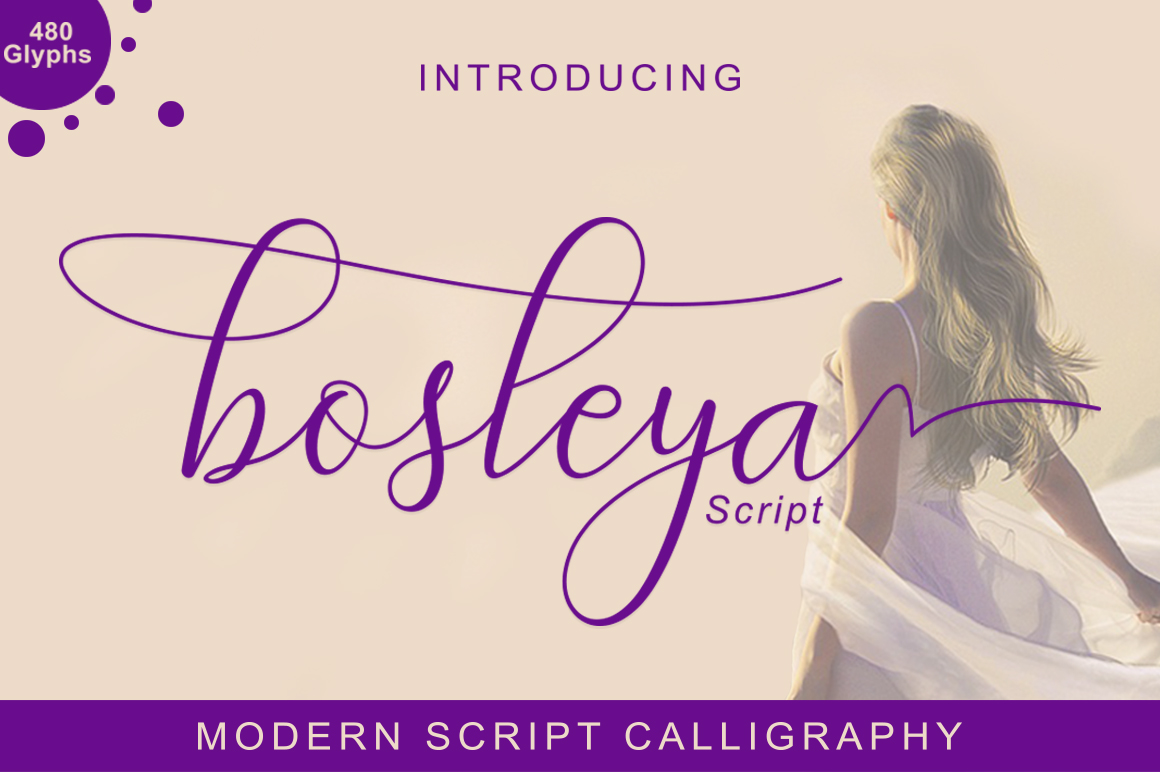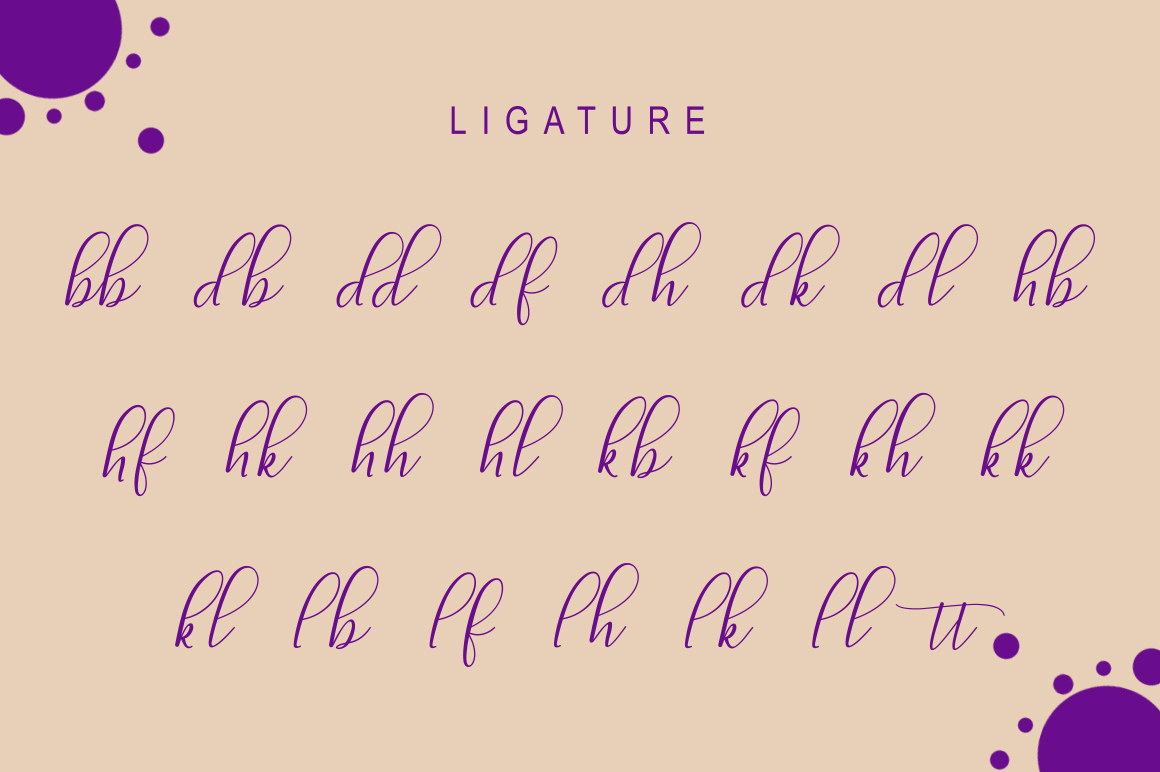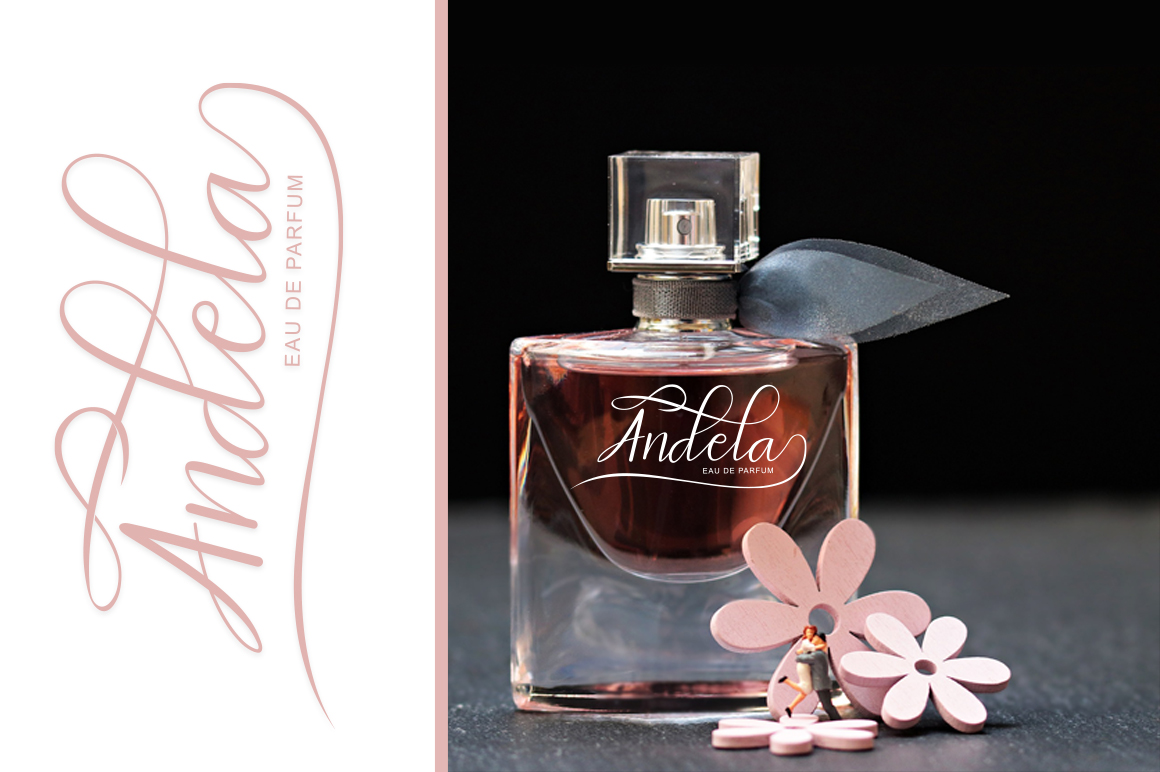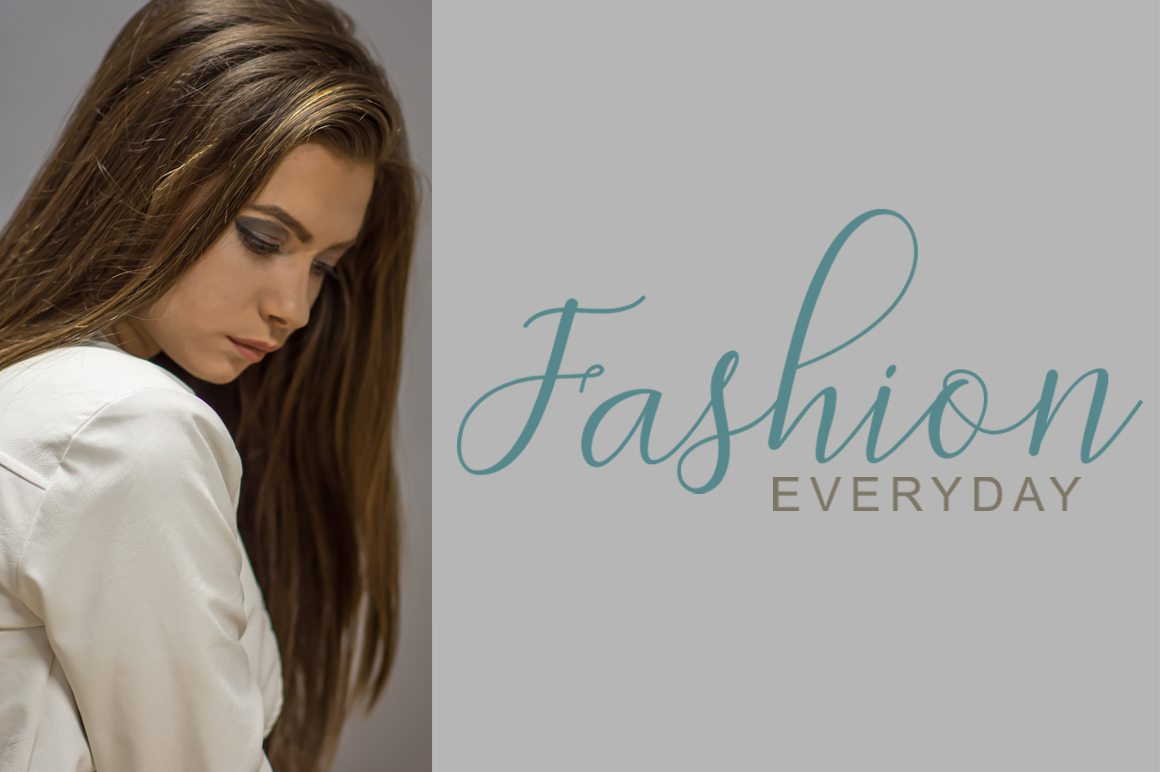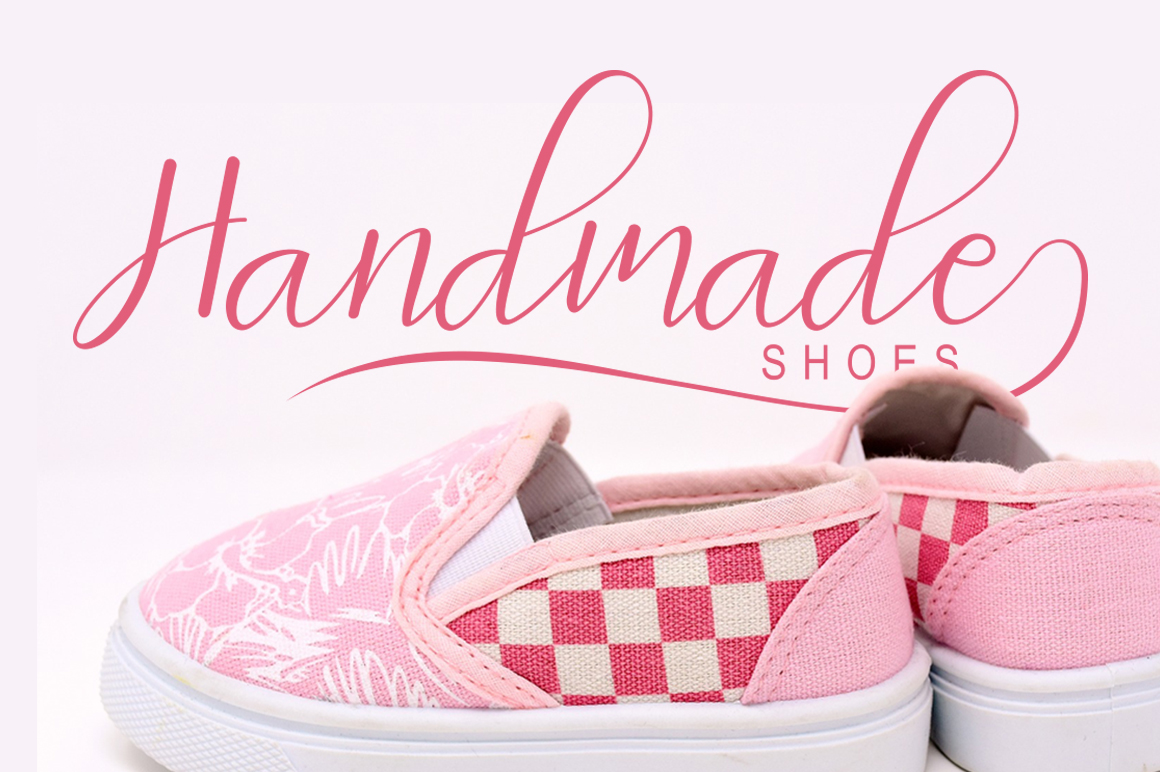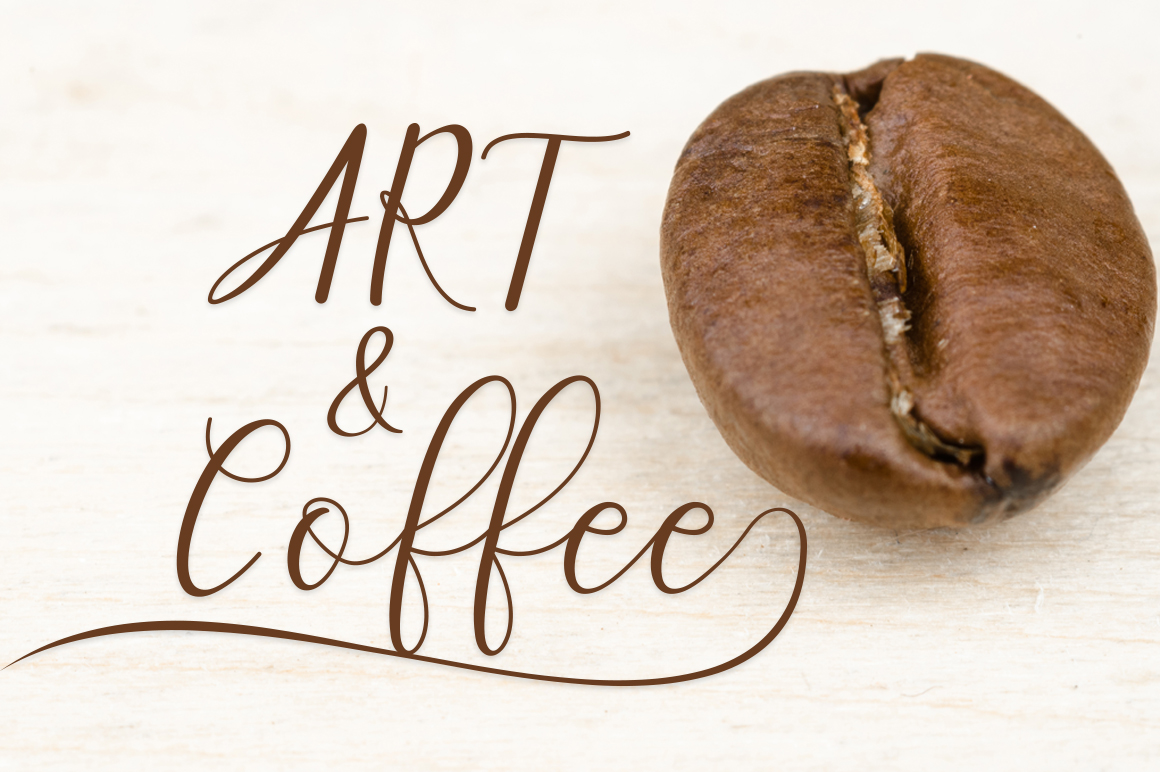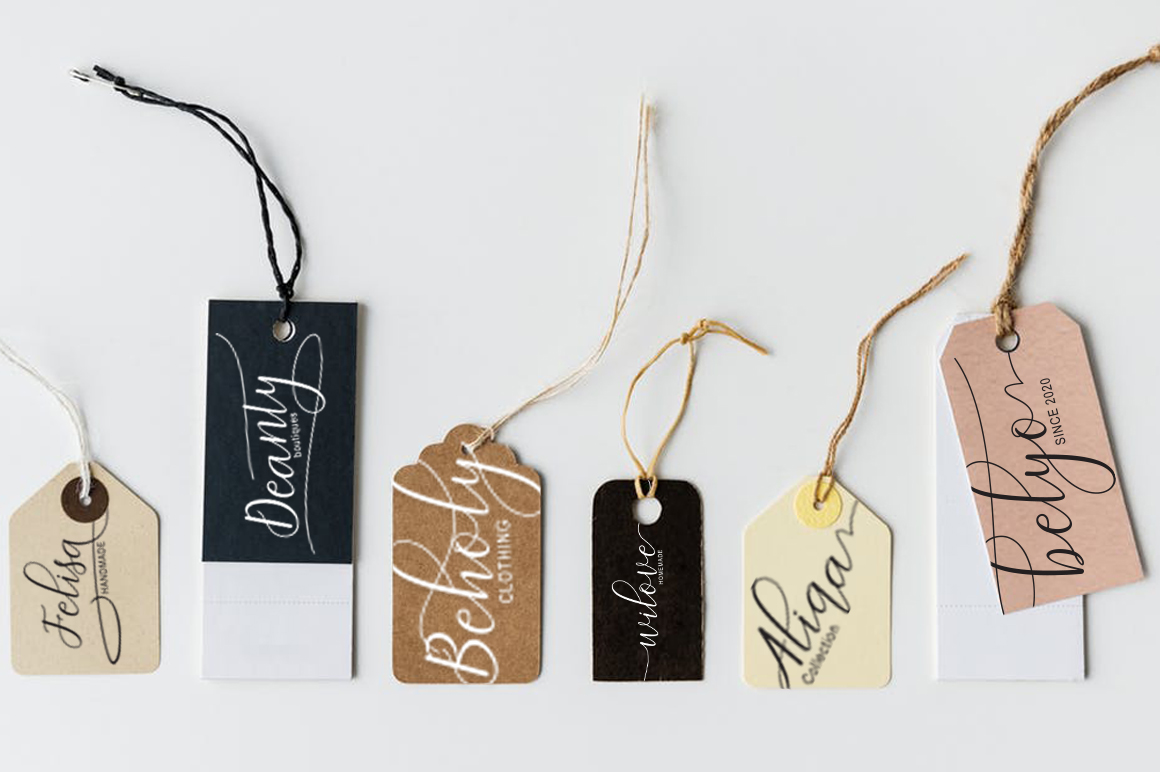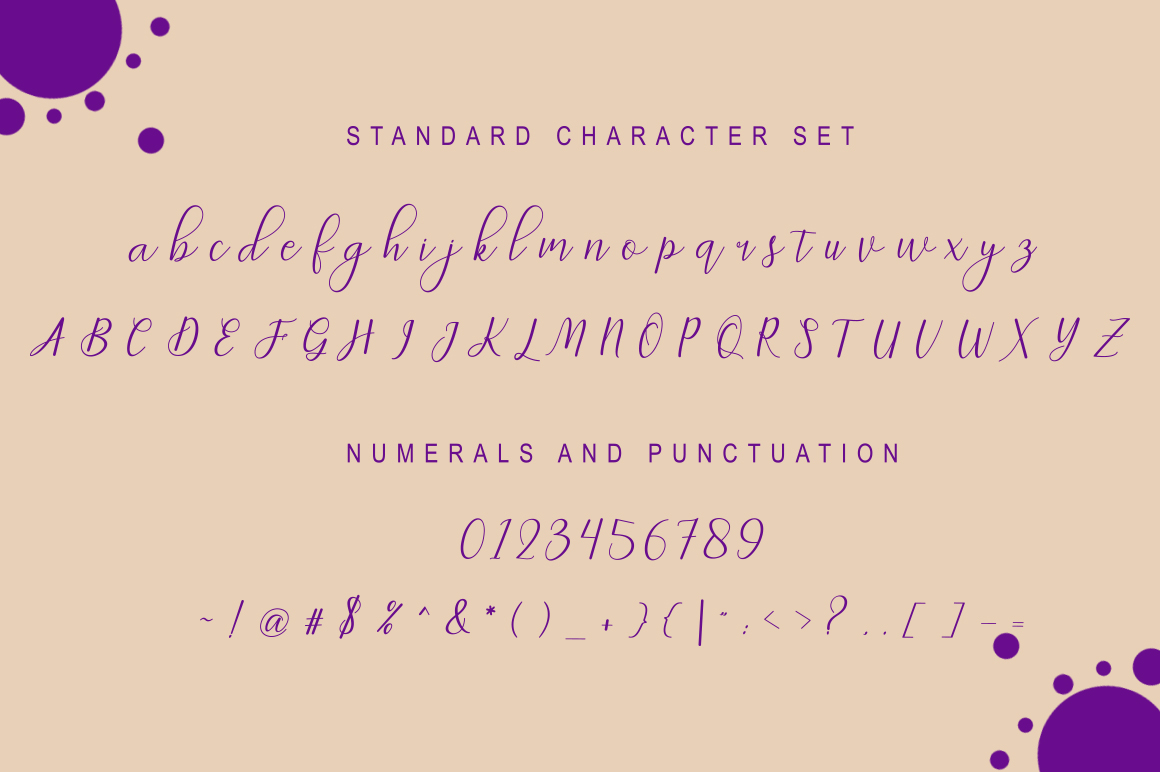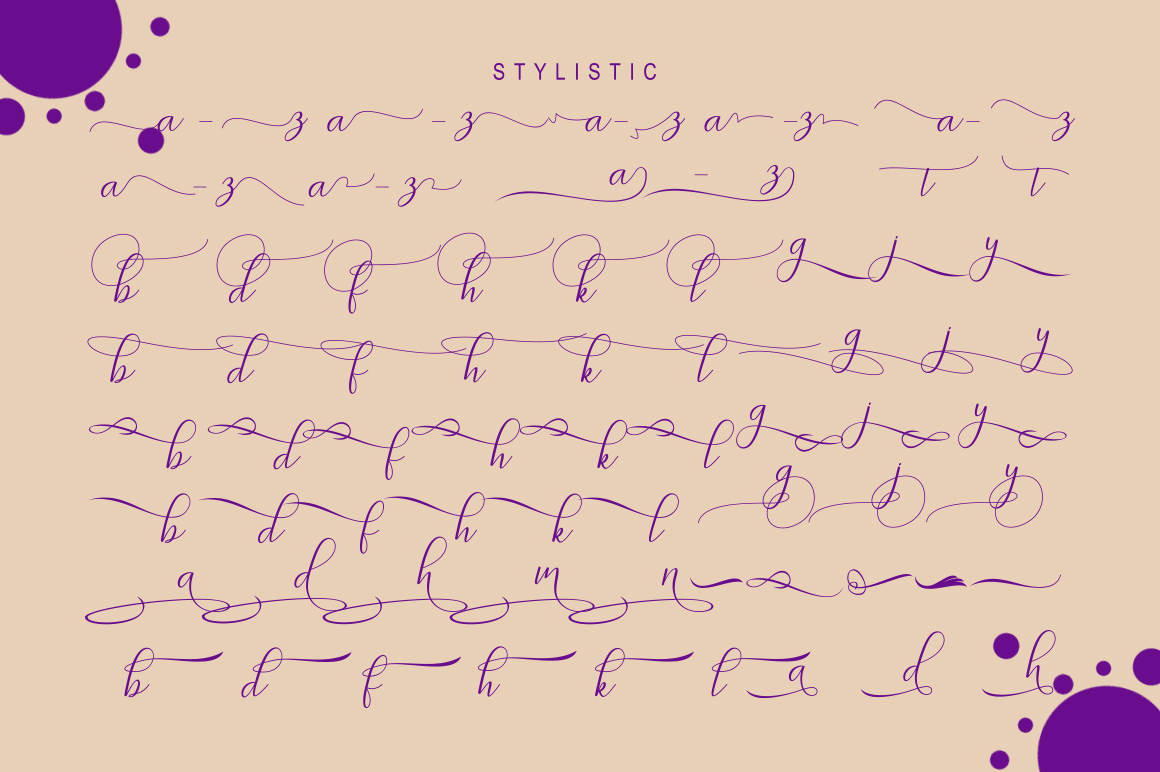
Bosleya Font
About Bosleya Font
Bosleya is a stunning handwritten script that comes in 2 variations: Regular & Italic.
Each font has over 476 unique glyphs and is packed with stunning, PUA encoded swashes & swirls.